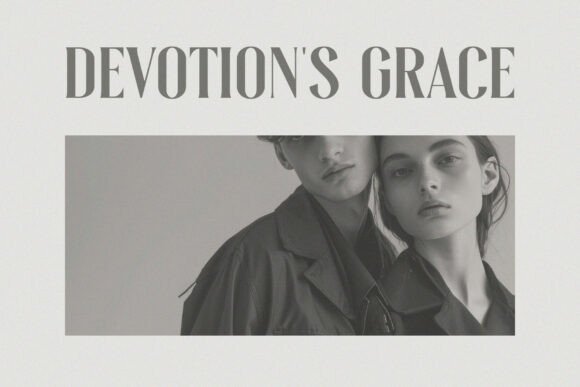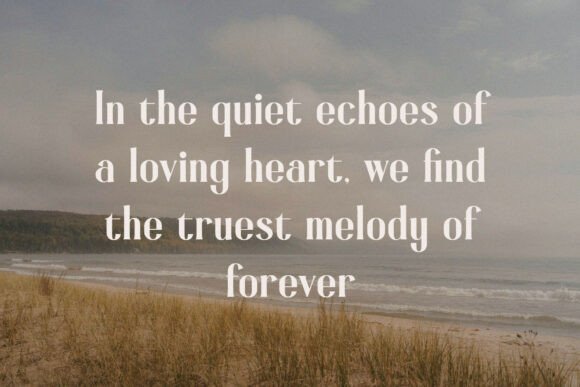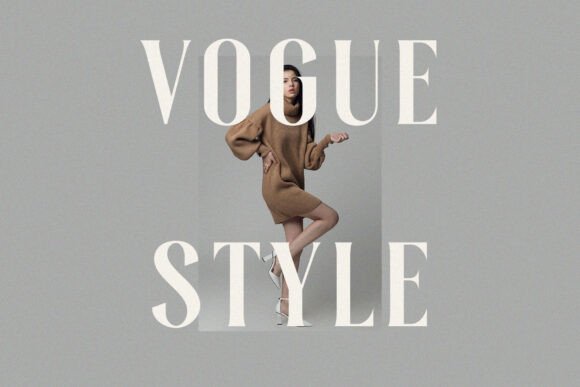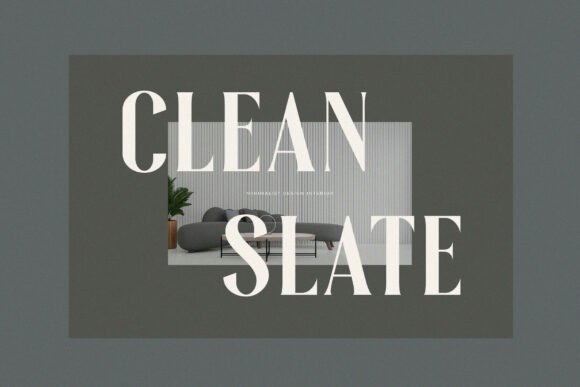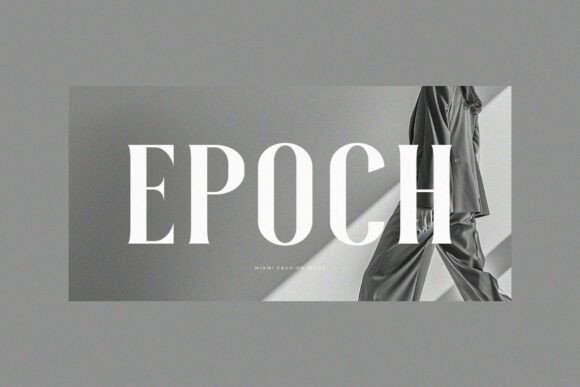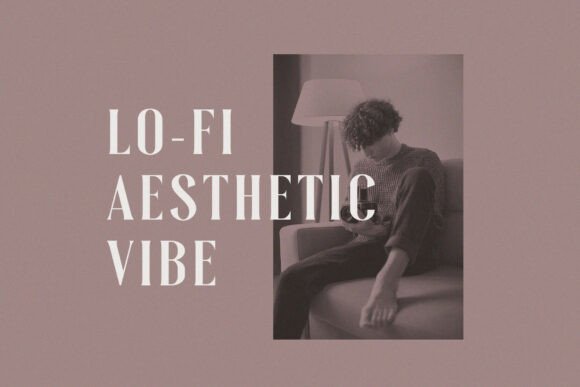
Gloscine Font: Elevate Your Design with Timeless Elegance
In the world of typography, a well-crafted font can make all the difference in elevating your design from ordinary to extraordinary. For designers and crafters seeking to infuse their projects with sophistication and elegance, Gloscine – a modern vintage serif font – is an exceptional choice. With its refined, condensed look and sharp, stylish serifs, Gloscine is perfect for luxury branding, magazine headlines, fashion logos, wedding invitations, and high-end packaging.
The Inspiration Behind Gloscine
Gloscine draws inspiration from the glamour of editorial typography and old-world charm, blending classic serif structure with a contemporary twist. This unique fusion results in a font that exudes timeless elegance and sophistication, making it ideal for projects that demand both refinement and modern flair. The designers behind Gloscine aimed to create a typeface that would not only pay homage to traditional serif fonts but also cater to the needs of modern designers seeking a fresh, yet classic look.
Key Features of Gloscine Font
Gloscine boasts an impressive array of features that make it an excellent addition to any designer’s toolkit:
- Uppercase & lowercase letters: Gloscine includes a comprehensive set of both uppercase and lowercase letters, ensuring versatility and flexibility in your designs.
- Multilingual support: With Gloscine, you can create designs that cater to a global audience, thanks to its extensive multilingual support.
- Perfect for luxury, fashion, and editorial design: Gloscine’s refined and condensed look makes it particularly well-suited for high-end applications, such as luxury branding, fashion logos, and editorial design.
Applications of Gloscine Font
Gloscine’s versatility and elegance make it an excellent choice for a wide range of design applications:
- Luxury branding: Create a lasting impression with Gloscine’s sophisticated and refined look, perfect for high-end brands seeking to establish a luxurious image.
- Magazine headlines: Add a touch of elegance to your magazine headlines with Gloscine’s sharp, stylish serifs and condensed look.
- Fashion logos: Elevate your fashion brand with Gloscine’s modern vintage charm and sophisticated aesthetic.
- Wedding invitations: Make your wedding invitations truly special with Gloscine’s elegant and refined typography.
- High-end packaging: Add a touch of luxury to your packaging designs with Gloscine’s classy and sophisticated look.
Why Choose Gloscine Font?
With so many fonts available, why choose Gloscine for your design projects? Here are just a few compelling reasons:
- Timeless elegance: Gloscine’s classic serif structure and modern twist ensure that your designs will remain timeless and elegant for years to come.
- Sophisticated voice: Gloscine gives your typography a sophisticated voice, perfect for designers seeking to create high-end designs that exude refinement and luxury.
- Stand out from the crowd: With Gloscine, you can create designs that truly stand out from the crowd, thanks to its unique blend of classic and modern elements.
In conclusion, Gloscine – Classy Condensed Serif Font is an exceptional choice for designers and crafters seeking to elevate their designs with timeless elegance and sophistication. With its refined, condensed look and sharp, stylish serifs, Gloscine is perfect for a wide range of design applications, from luxury branding and magazine headlines to fashion logos and high-end packaging. Whether you’re crafting a high-end brand or an artistic poster, Gloscine gives your typography a sophisticated voice that is sure to leave a lasting impression.